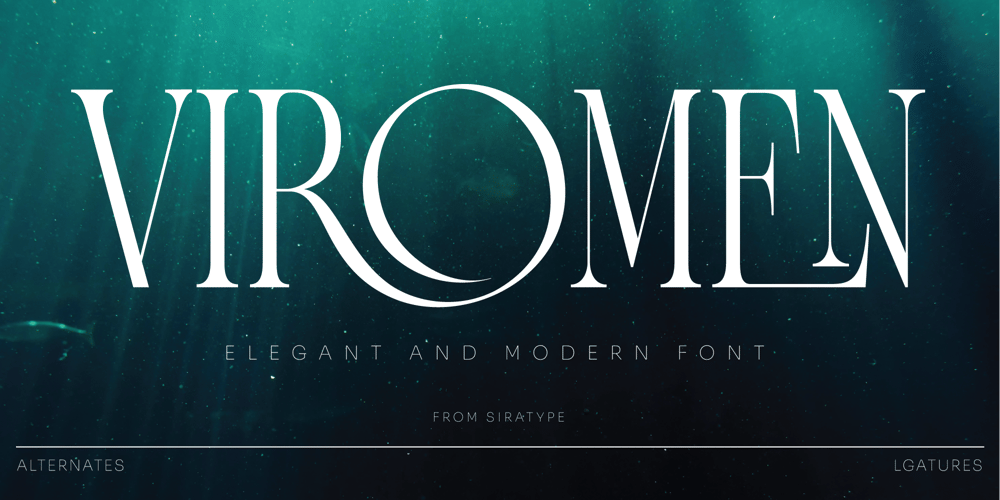
Viromen
Viromen font
Viromen Font Family was designed by Nassira Boufelja and published by Siratype. Viromen contains 1 styles and family package options. Viromen is an elegant and modern serif font known for its tall, slender letterforms and a strong contrast between thick and thin strokes. Its design exudes sophistication and luxury, making it ideal for high-end branding, titles, and display use. The font also offers unique stylistic alternates and ligatures, providing flexibility for creative and personalized design projects. Viromen strikes a balance between classic elegance and contemporary style, making it suitable for a variety of visual applications such as logos, headlines, and posters.Features :-Uppercase letters-Ligatures & alternate -Numbers & punctuation-Multilingual support . . .